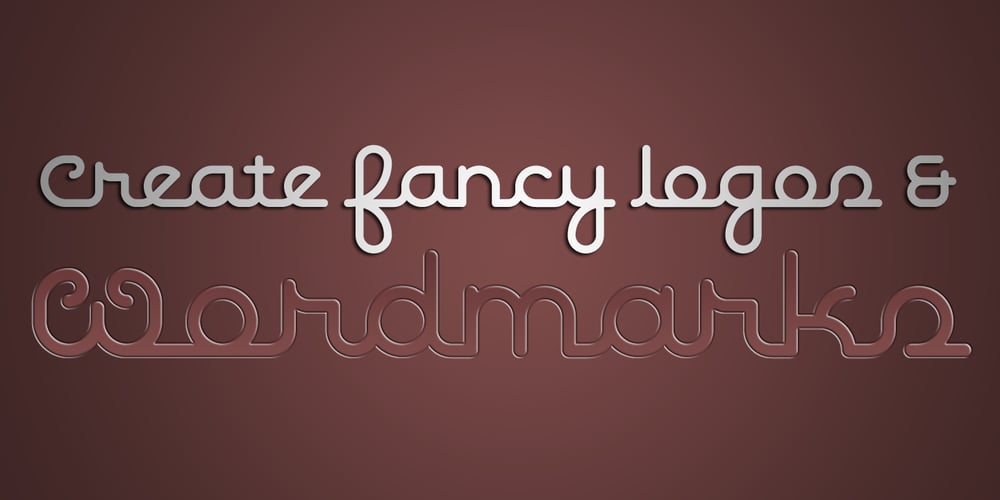
Geometry Script Pro
Geometry Script Pro font
Geometry Script Pro Font Family was designed by Roger S. Nelsson and published by CheapProFonts. Geometry Script Pro contains 2 styles and family package options. The Geometry Pro family has been designed to be the final word in purely geometric fonts, and this rounded Script sub-family is a nod to the 50s style of connected logomarks. Words set with both the Regular and the Alternate (with its more flourished capitals and alternate stem connections) can be extended by using the underscore character between letters. You can freely mix and match glyphs from both fonts to create a little bit of variety, and finding that perfect combination. For a matching set of capitals (and disconnected lowercase letters): check out the Regular weights of the Geometry Soft Pro family. All the Geometry Pro fonts are strictly geometric (as drawn with a compass and a ruler fixed to 90 and 45 degree angles) but they are not slavishly modular. ALL fonts from CheapProFonts have very extensive language support: They contain some unusual diacritic letters (some of which are contained in the Latin Extended-B Unicode block) supporting: Cornish, Filipino (Tagalog), Guarani, Luxembourgian, Malagasy, Romanian, Ulithian and Welsh. They also contain all glyphs in the Latin Extended-A Unicode block (which among others cover the Central European and Baltic areas) supporting: Afrikaans, Belarusian (Lacinka), Bosnian, Catalan, Chichewa, Croatian, Czech, Dutch, Esperanto, Greenlandic, Hungarian, Kashubian, Kurdish (Kurmanji), Latvian, Lithuanian, Maltese, Maori, Polish, Saami (Inari), Saami (North), Serbian (latin), Slovak(ian), Slovene, Sorbian (Lower), Sorbian (Upper), Turkish and Turkmen. And they of course contain all the usual “western” glyphs supporting: Albanian, Basque, Breton, Chamorro, Danish, Estonian, Faroese, Finnish, French, Frisian, Galican, German, Icelandic, Indonesian, Irish (Gaelic), Italian, Northern Sotho, Norwegian, Occitan, Portuguese, Rhaeto-Romance, Sami (Lule), Sami (South), Scots (Gaelic), Spanish, Swedish, Tswana, Walloon and Yapese.